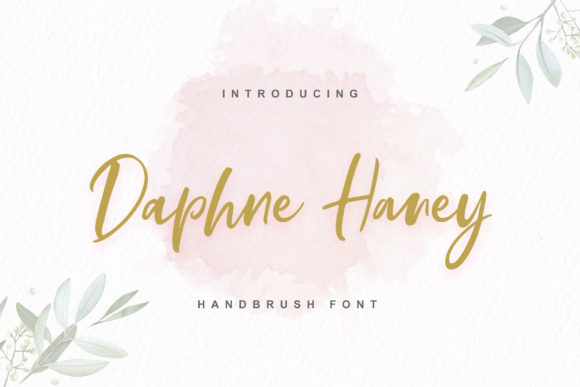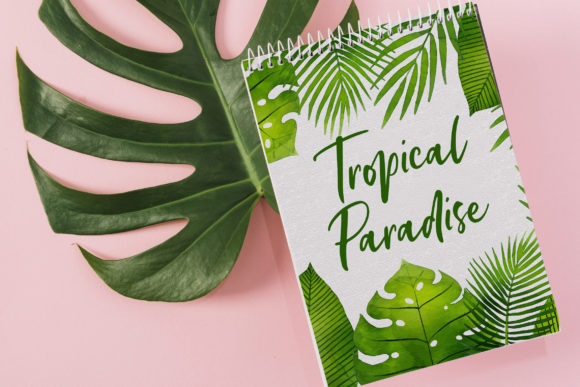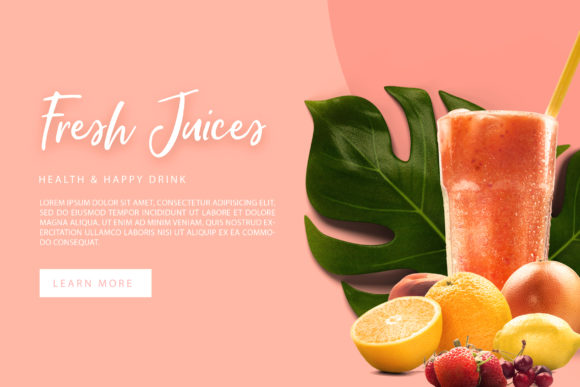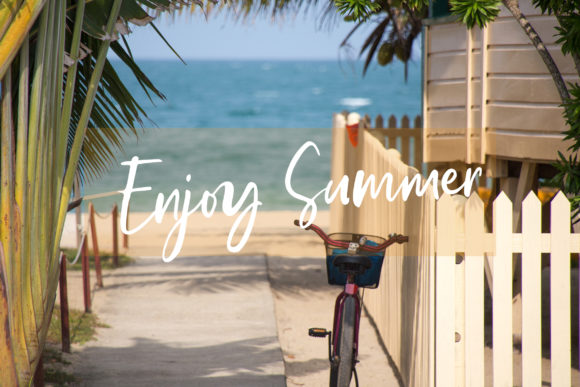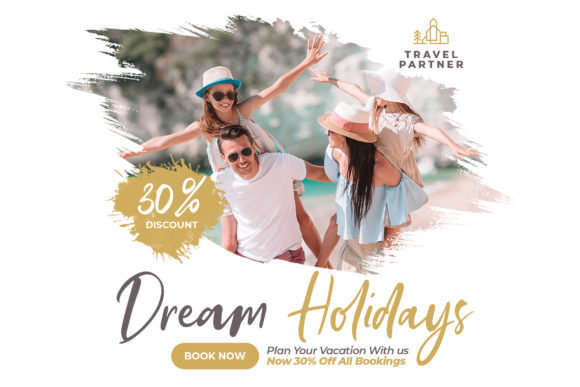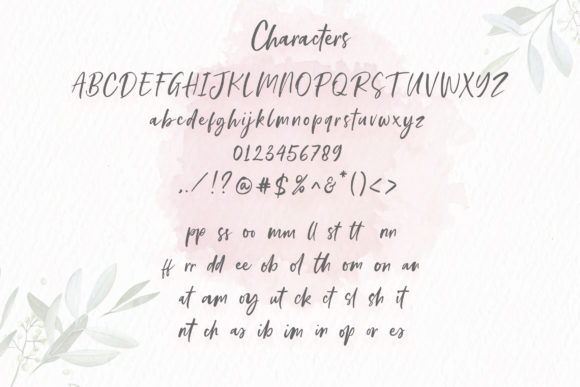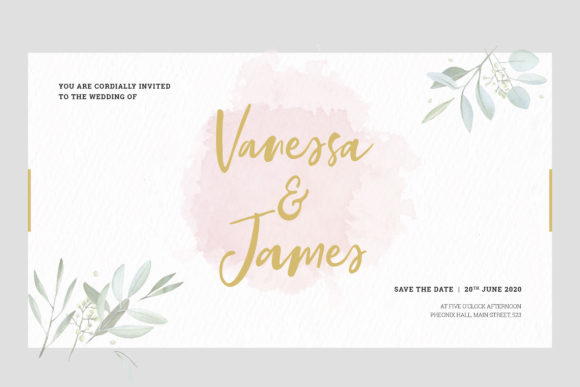
Daphne Haney Font
About Daphne Haney Font
Daphne Haney is beautiful and natural handwritten font. Perfectly suited to make allĀ  your projects look more natural.